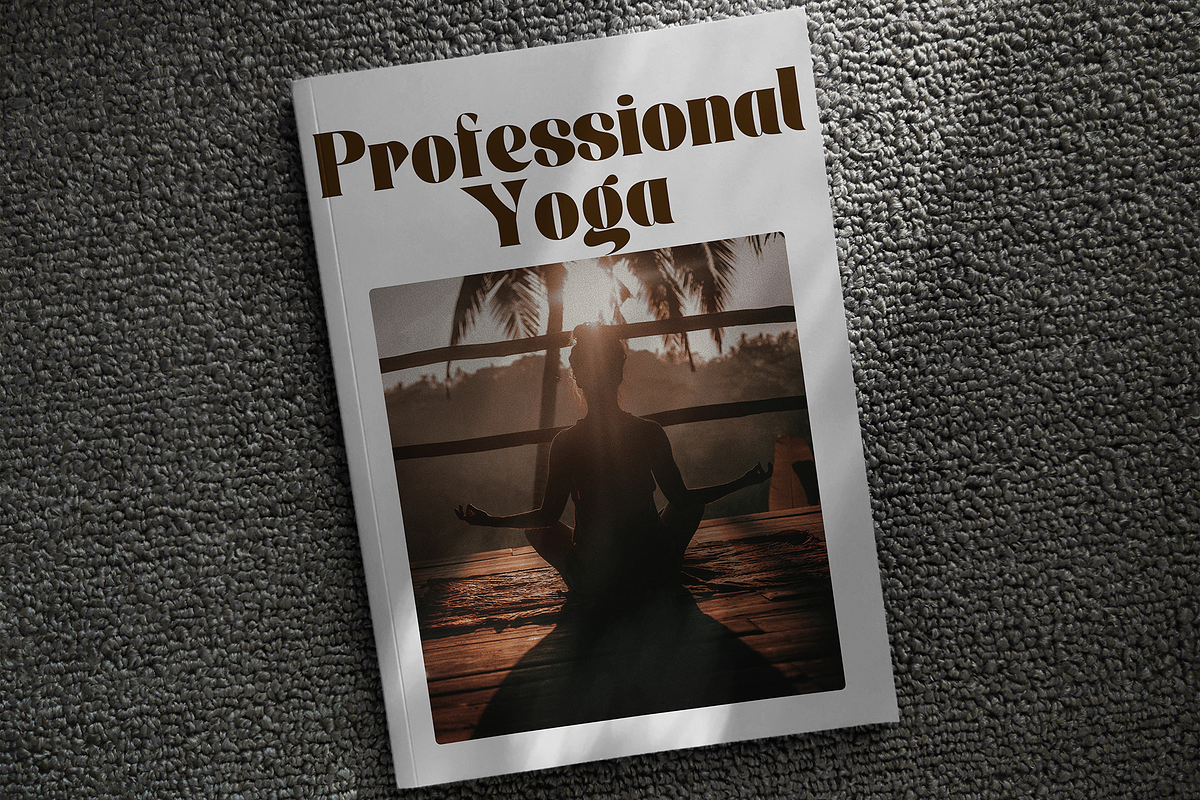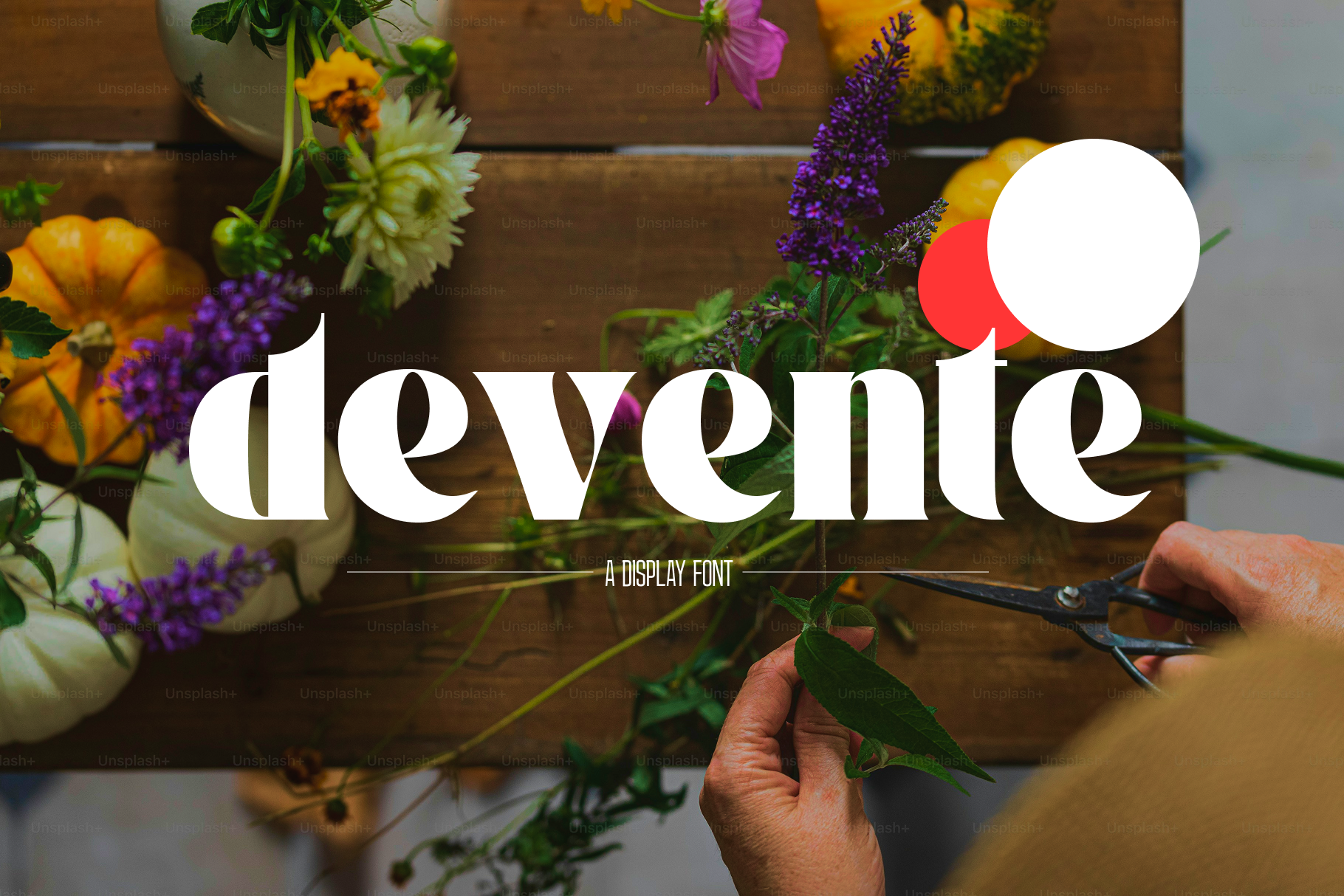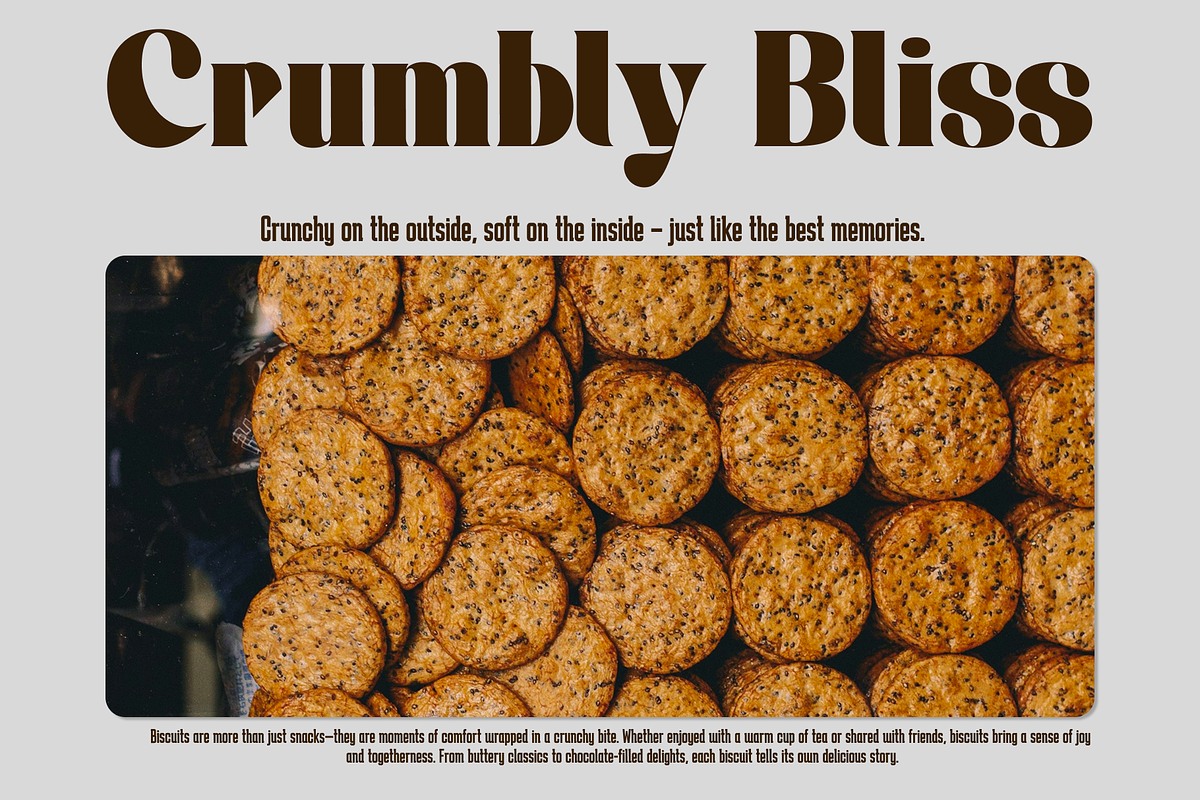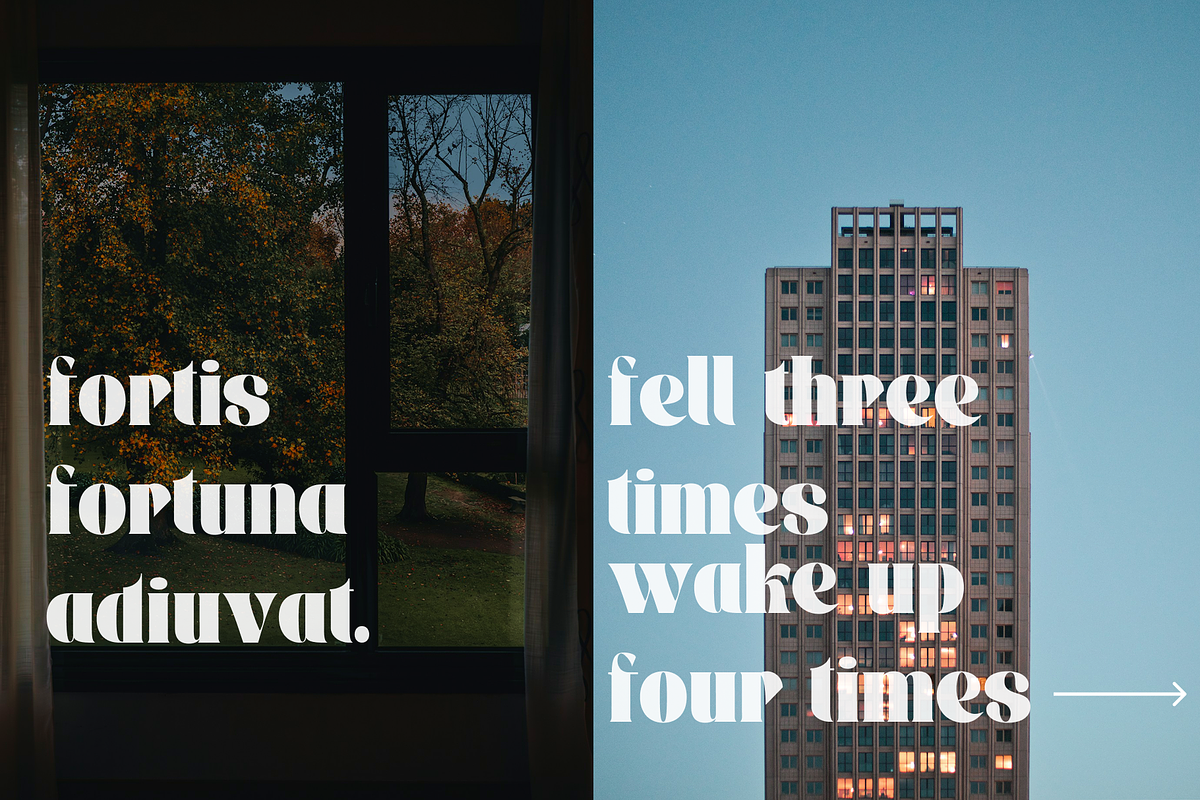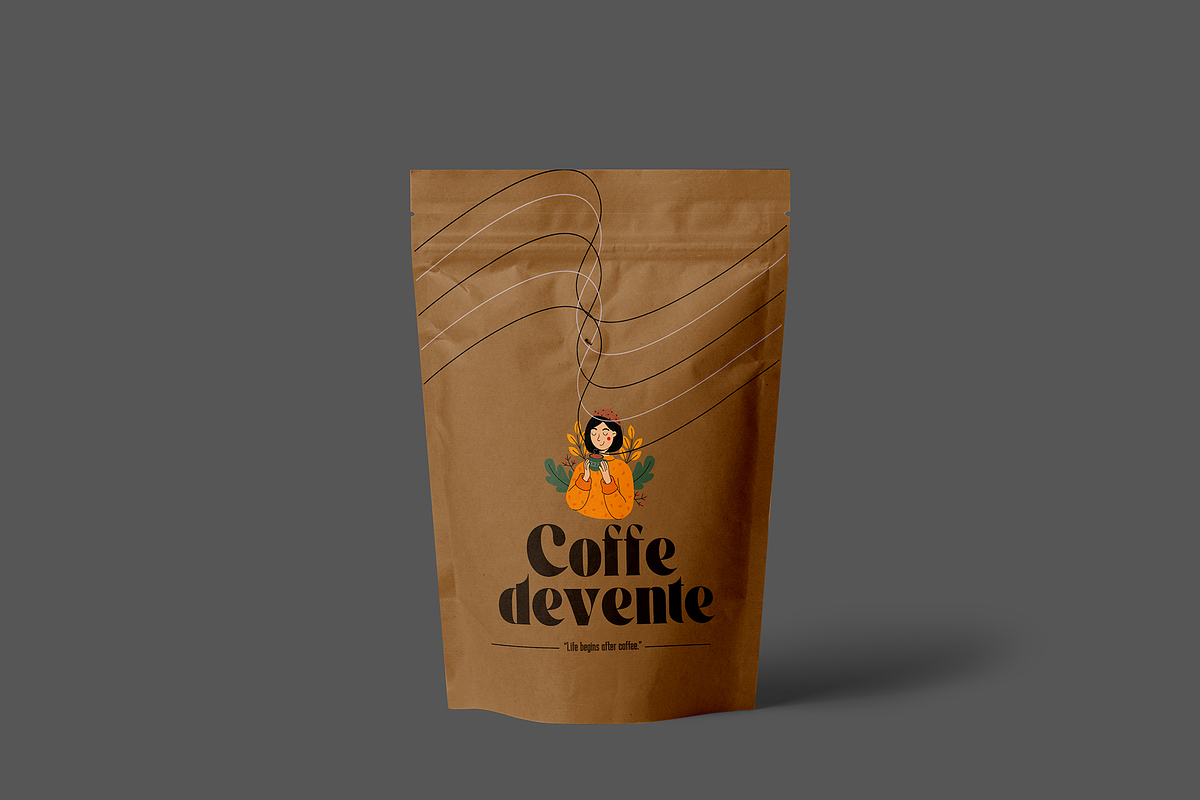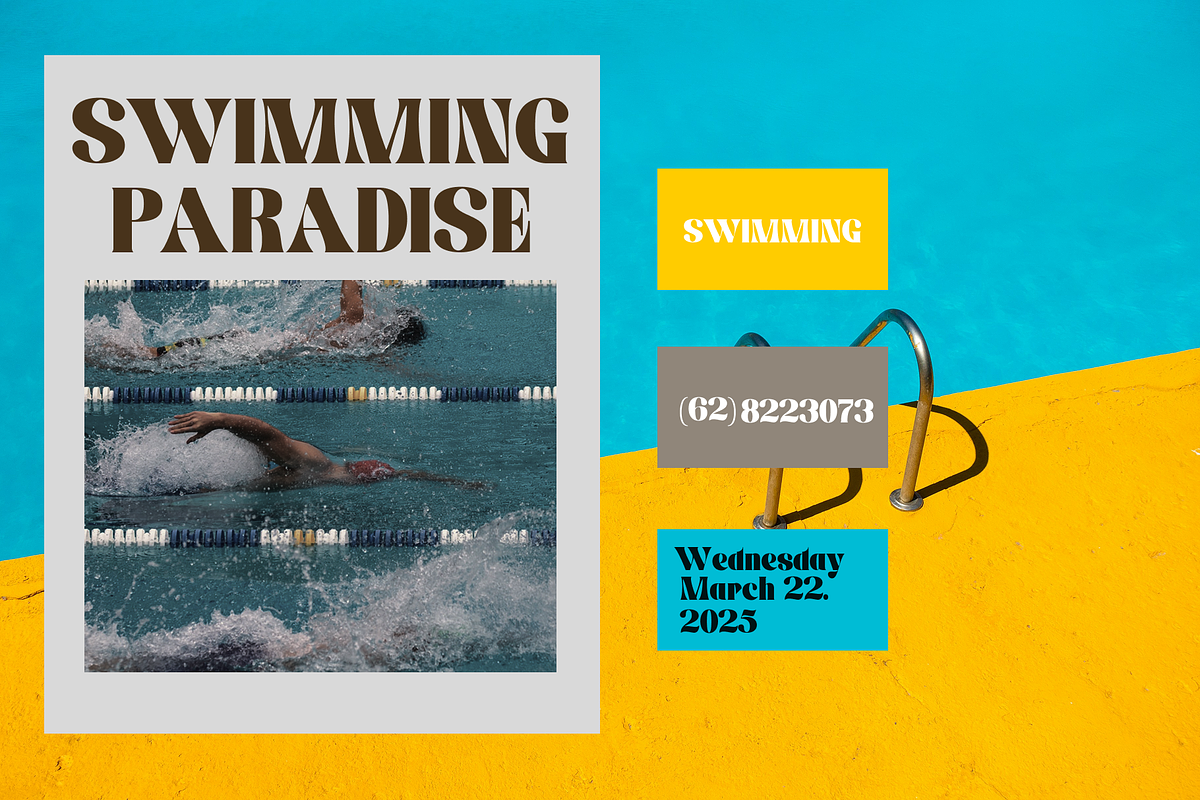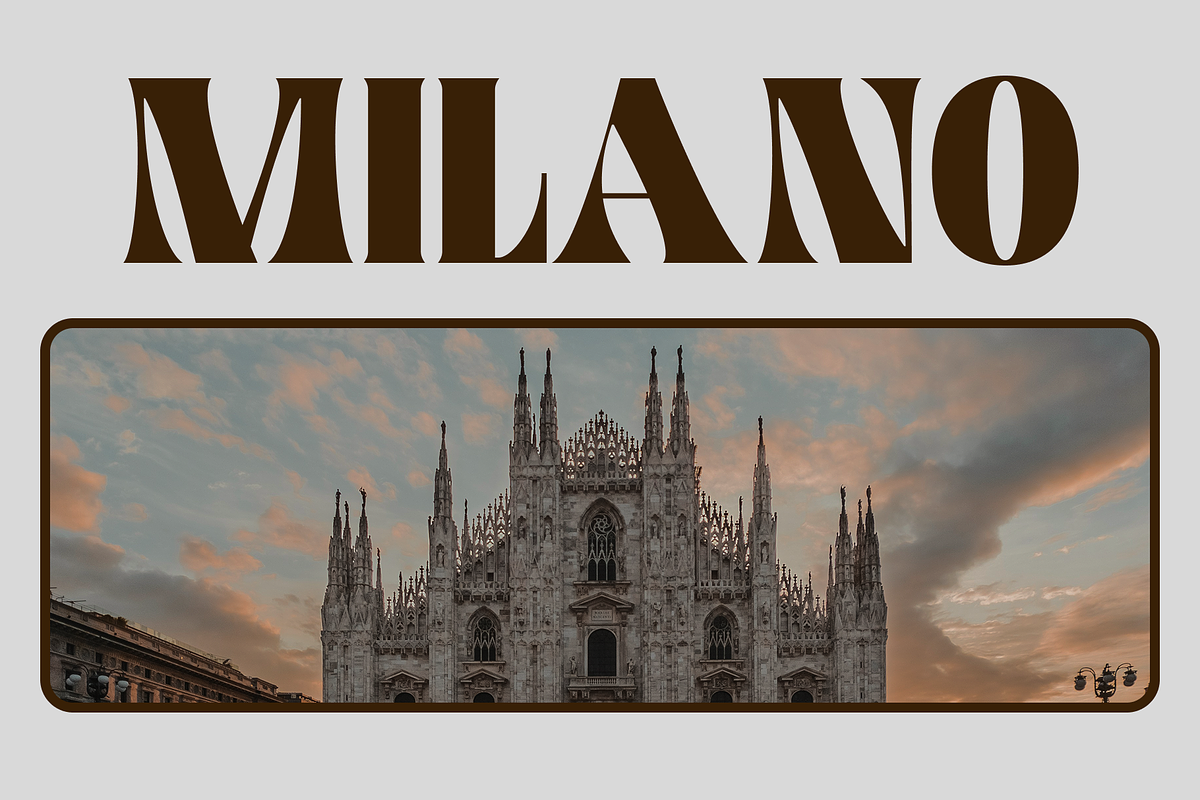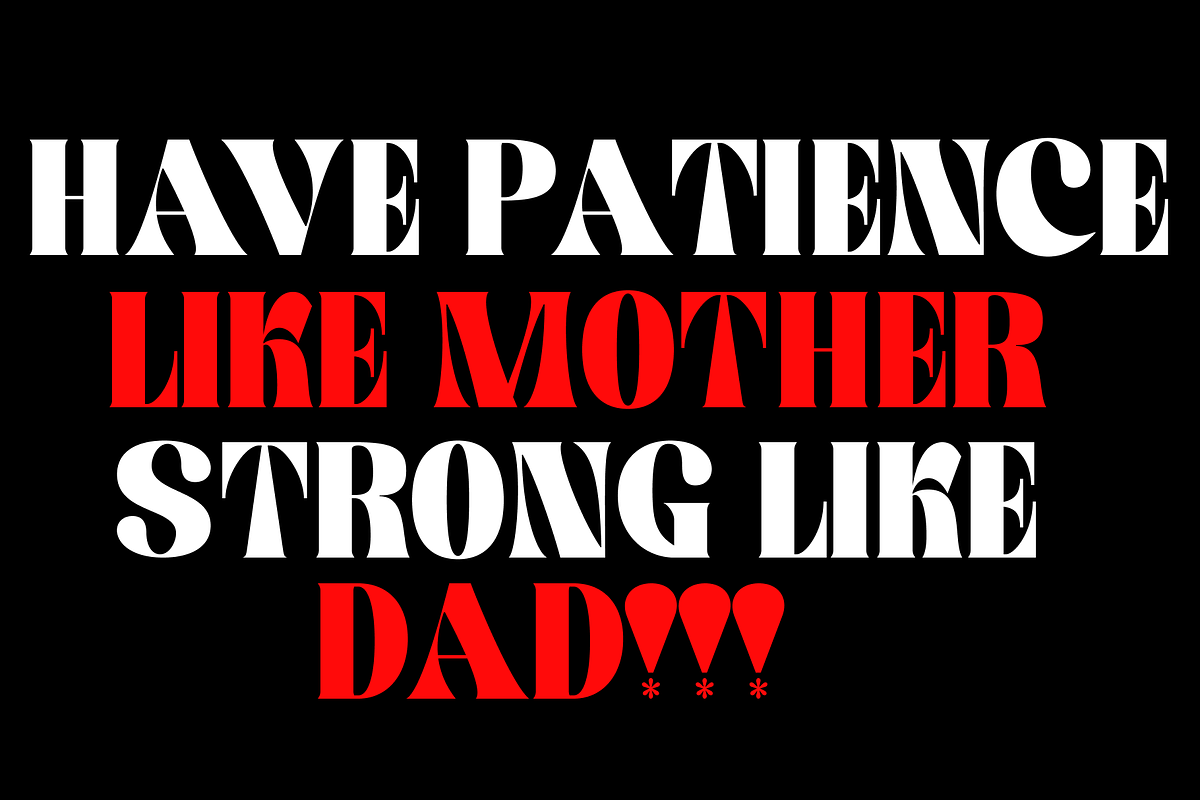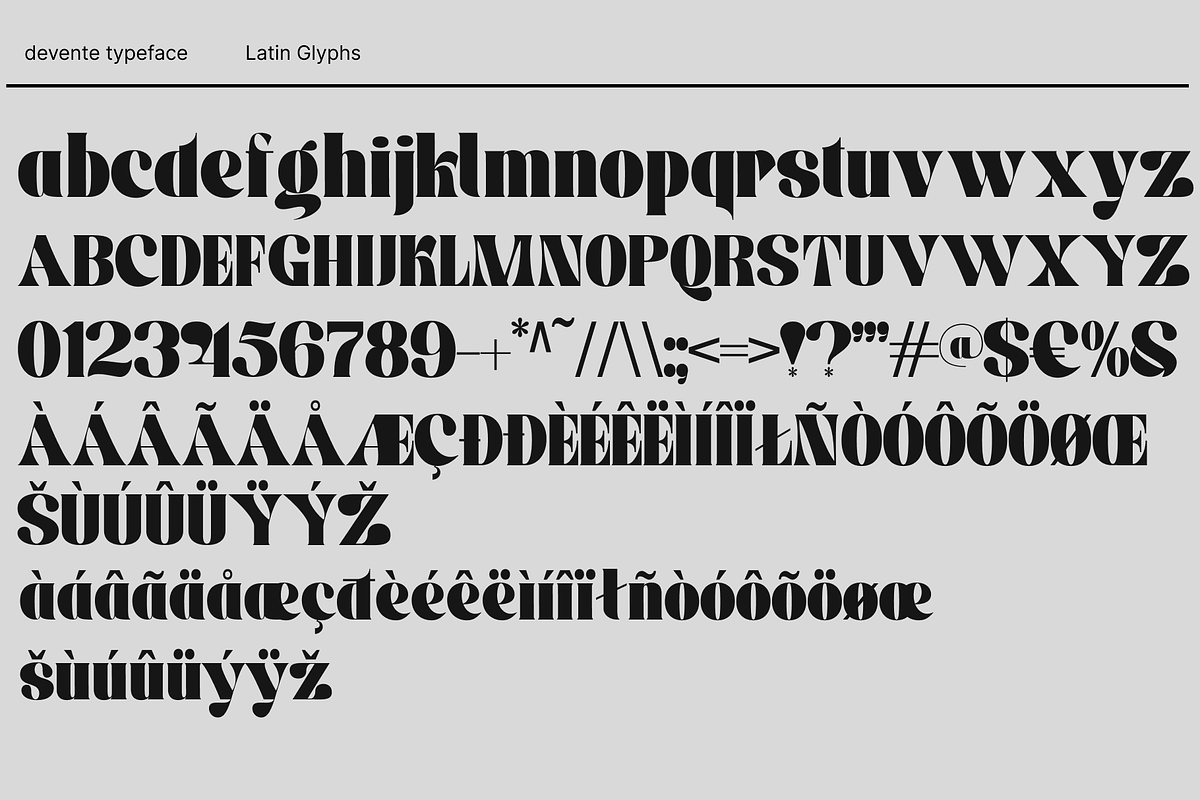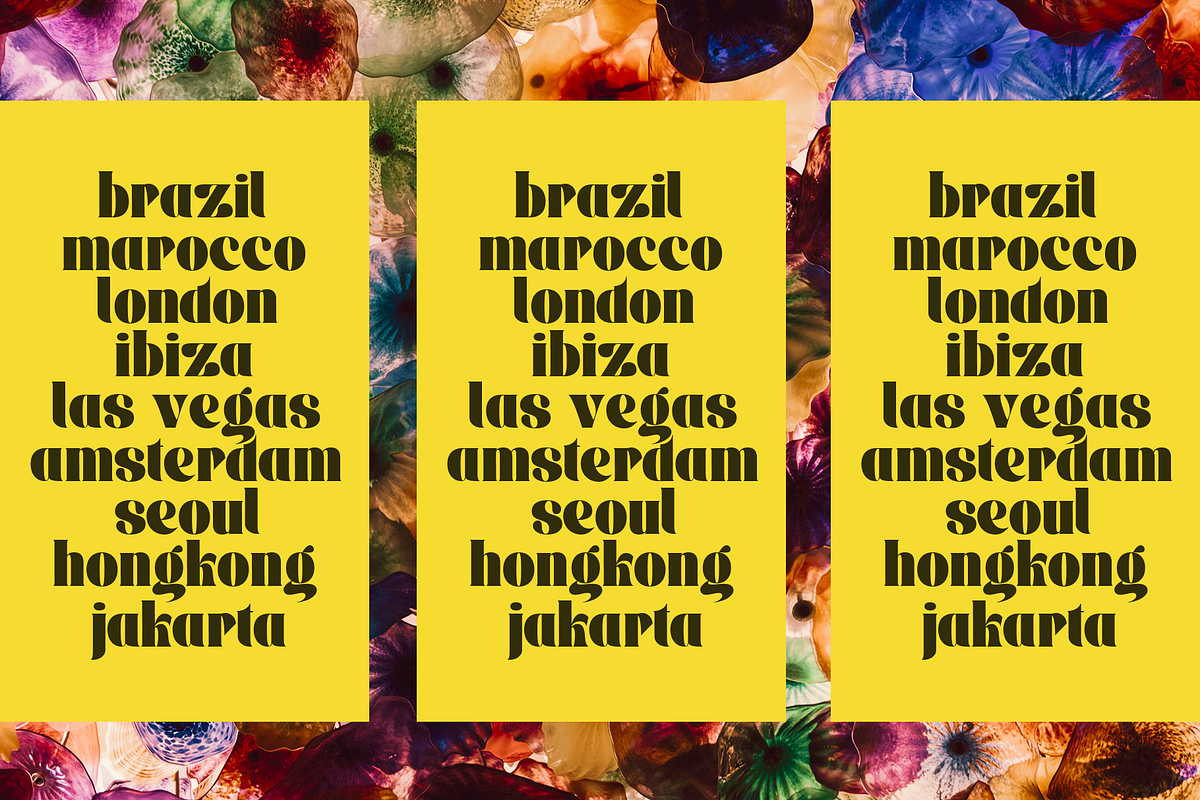
devente Display Typeface
devente is a fresh addition to the world of type. It’s laidback, welcoming and perfect whatever creative venture you use it for.
Contains all uppercase, numbers and basic punctuation.